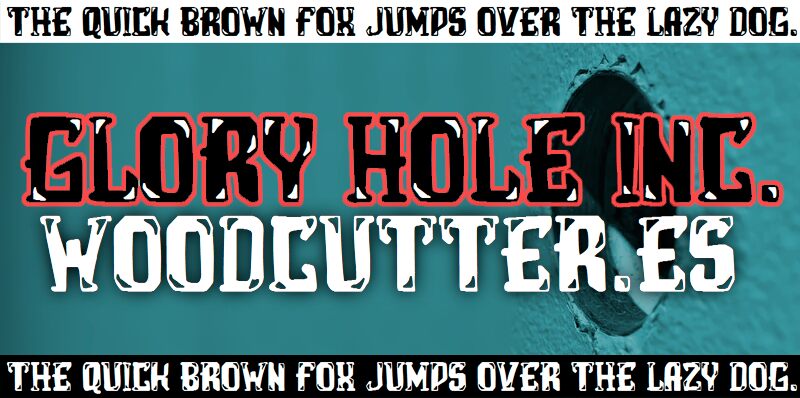
Glory Hole Inc
Glory Hole Inc is a display font designed for print and web by Woodcutter. It’s a perfect fit for all your vintage-inspired projects, whether it’s for apparel design, packaging branding, or any editorial project with a retro or dark theme. This bold uppercase font includes full uppercase and numbers for a very versatile resource.
The font’s style is influenced by the golden age of circus posters and logotypes with thick serifs.